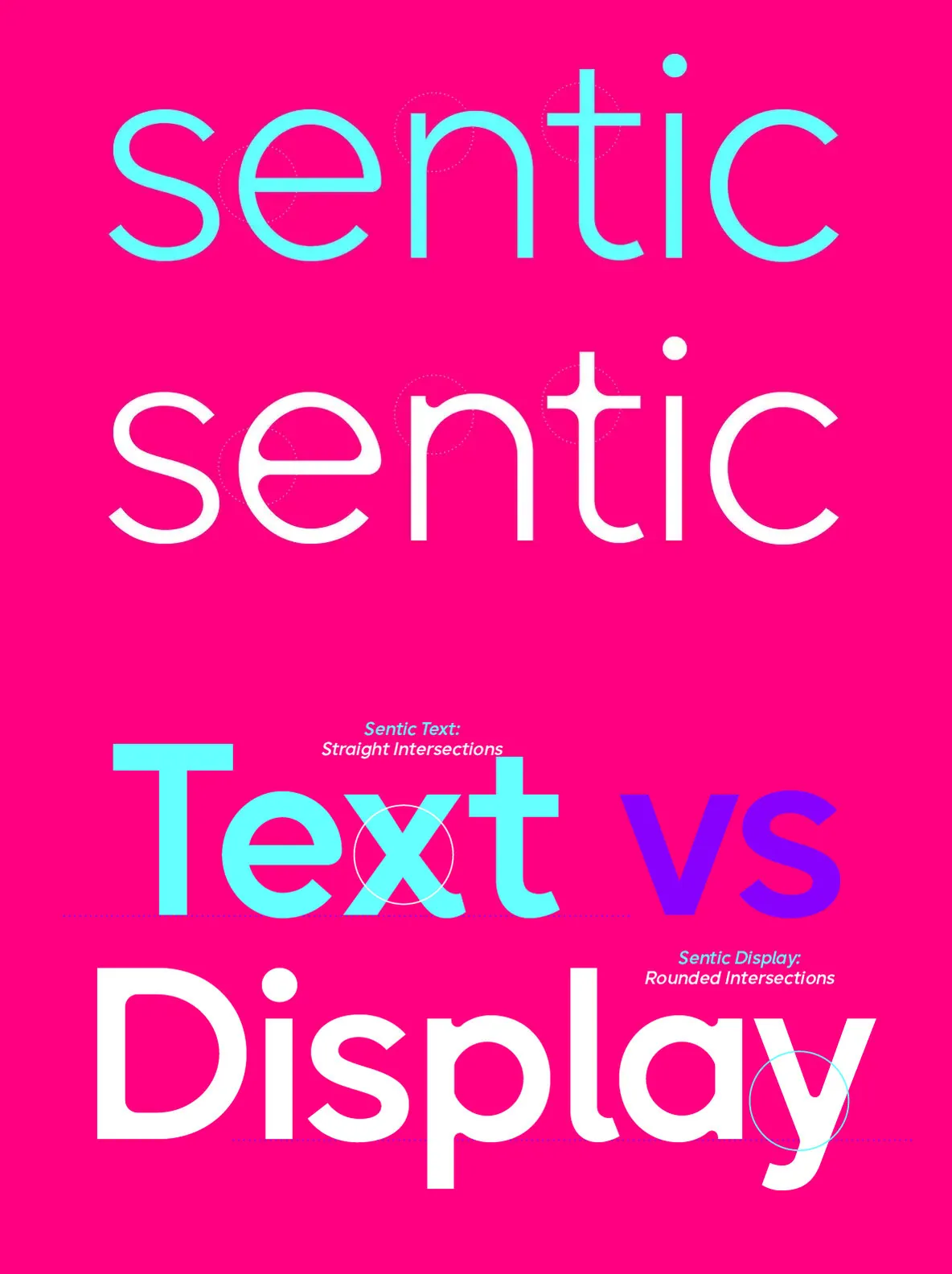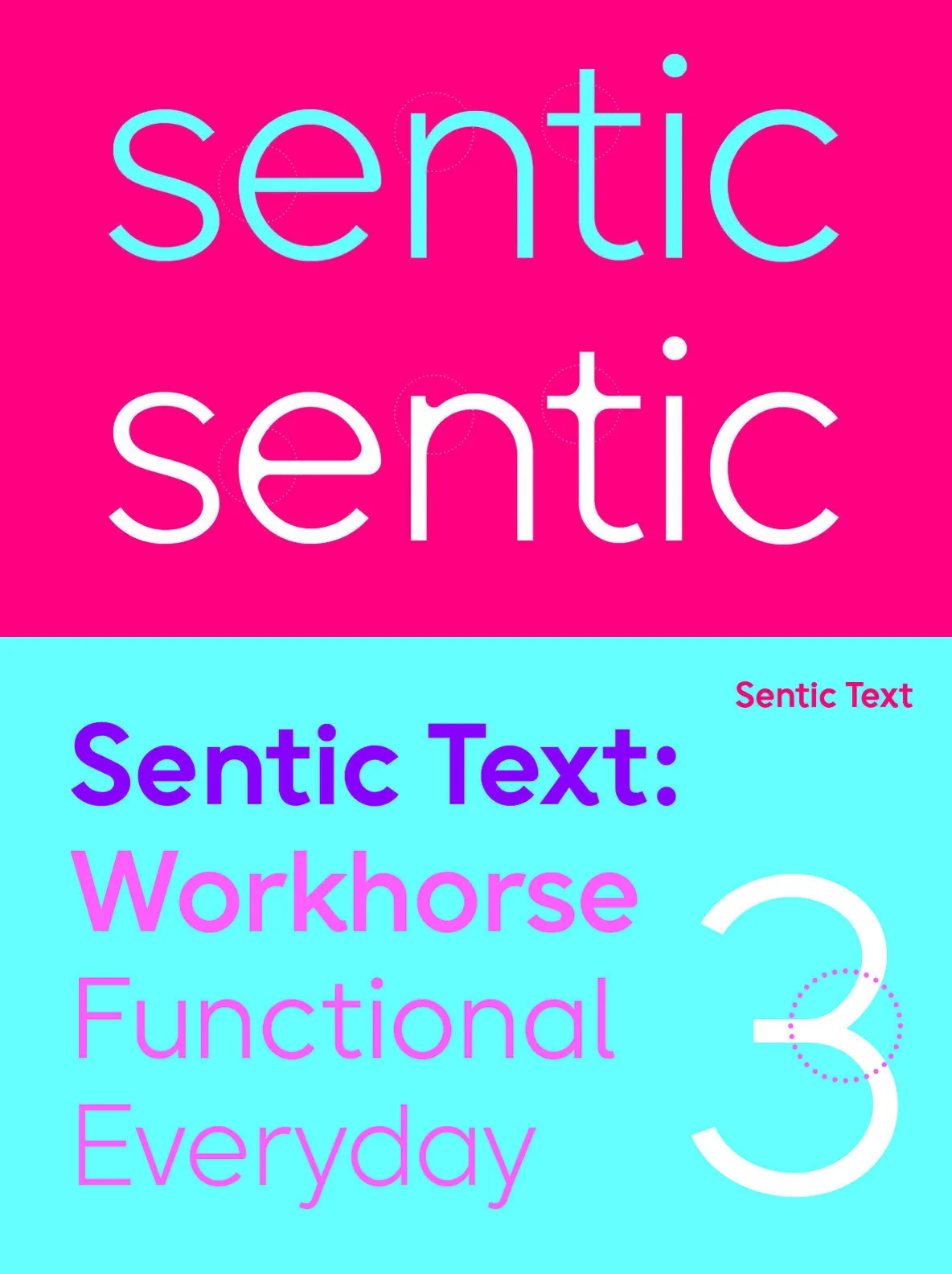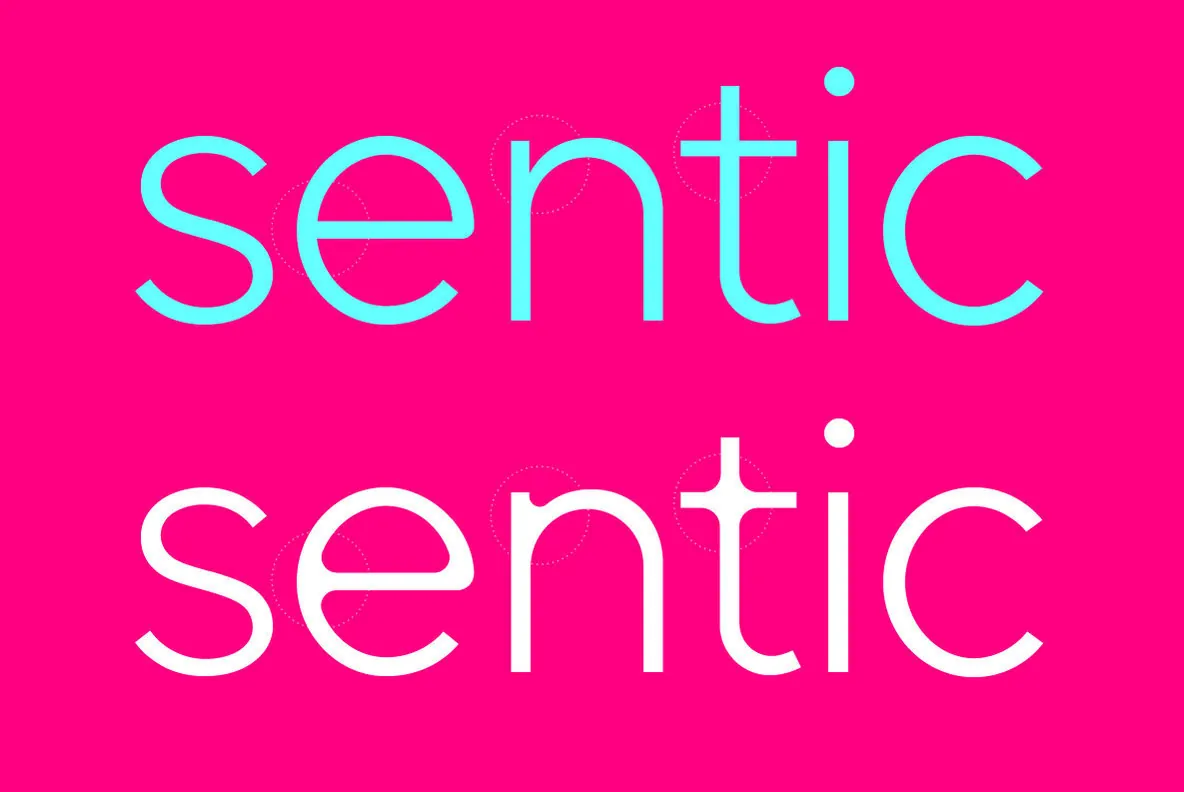
Sentic Font
The font family is called Sentic, it is a sans-serif font based on geometric patterns with humanist elements. The display version of the typeface incorporates rounded intersecting forms. The font exploits the common affective patterns associated with natural language, and the patterns associated with text and speech.
The name sentic was instigated and named by Austrian neuroscientist Manfred Clynes. Which is the study of waveforms of touch, emotion, and music.